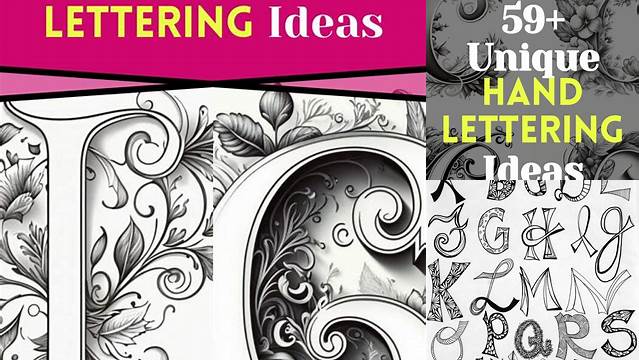
Mastering Font Art: A Guide To Drawing Unique Lettering
Hey guys! Ever wanted to make your handwriting look super cool or create awesome designs with different fonts? Learning how to draw different fonts can be a game-changer for your art, journaling, or even just making notes more fun. It’s not as intimidating as it sounds, I promise! In this guide, we're going to dive deep into the world of font art, exploring everything from the basics to some pretty advanced techniques. So, grab your pencils, pens, or tablets, and let’s get started on this lettering journey!
1. Understanding the Basics of Typography
Before we jump into the actual drawing, let’s talk typography! Understanding the anatomy of letters—like the baseline, x-height, ascenders, and descenders—is crucial for creating consistent and visually appealing fonts. Think of it like this: each letter has a skeleton, and knowing the parts of that skeleton helps you build a strong and beautiful character. Familiarize yourself with terms like serifs (the little feet on some letters) and sans-serifs (no feet!), which are fundamental in font classification. When you know these elements, how to draw different fonts becomes less about copying and more about creating. We’ll break down each term and how they impact the overall look of your fonts. Trust me, once you get this, you'll start seeing fonts everywhere in a whole new light, from the signs you pass on the street to the books you read. And that’s the first step in becoming a true font artist!
2. Drawing Serif Fonts: Classic and Elegant
Serif fonts are those classic, elegant letter styles with the little strokes or "feet" at the ends of the letterforms. Think Times New Roman or Garamond – they're everywhere! When learning how to draw different fonts, mastering serif fonts is a great place to start because they teach you about structure and balance. The key here is consistency in the serifs themselves. Are they bracketed (curved) or unbracketed (straight)? Are they thick or thin? Keeping these details uniform will make your font look polished and professional. Practice drawing the basic alphabet in a serif style, paying close attention to the thickness of the strokes and the shape of the serifs. Start with the uppercase letters, as they're often easier to control, then move onto the lowercase. You’ll see that the serifs add a touch of sophistication, making your lettering look timeless and refined.
3. Creating Sans-Serif Fonts: Modern and Clean
Sans-serif fonts, meaning "without serifs," offer a modern and clean aesthetic. Think Arial or Helvetica – these are your go-to fonts for a minimalist, contemporary vibe. When you’re figuring out how to draw different fonts, sans-serif styles are fantastic for practicing uniformity and simplicity. The challenge lies in maintaining consistent stroke widths throughout each letter. Because there are no serifs to add flourish, the shape and balance of the letters themselves are crucial. Start by sketching the basic forms, ensuring that the vertical and horizontal strokes are even. Pay attention to the negative space within and around the letters; this is just as important as the letters themselves in creating readability and visual appeal. Sans-serif fonts are incredibly versatile, making them perfect for everything from logos to body text in your designs.
4. Exploring Script Fonts: Flowing and Decorative
Script fonts are all about that flowing, cursive-like appearance. They mimic handwriting and add a touch of elegance and personality to your work. But when you’re learning how to draw different fonts, script styles can be a bit tricky. The key is understanding how the letters connect and maintain a smooth, consistent flow. Start by practicing the basic strokes – the loops, curves, and swashes that make script fonts so beautiful. Pay attention to the slant of the letters and the connections between them. It's helpful to study existing script fonts to get a feel for the rhythm and flow. Then, start experimenting with your own variations. Should the loops be large and dramatic, or small and subtle? Should the connections be delicate or bold? Each choice adds a different character to your script font. Script fonts are amazing for invitations, headings, and anything that needs a touch of flair.
5. Mastering Block Letters: Bold and Impactful
Block letters are bold, solid, and impactful. They’re perfect for headlines, posters, and anything that needs to grab attention. When it comes to how to draw different fonts, block letters are a fantastic exercise in precision and uniformity. The key here is to ensure that each letter has a consistent width and height, and that the spaces between the letters are even. Start by sketching the basic shapes, then fill them in with solid color or shading. Experiment with different thicknesses and styles – some block letters are very angular, while others have rounded edges. You can also play with drop shadows and 3D effects to make your block letters really pop. These fonts are super versatile, working great in both formal and informal designs, depending on the specific style you choose.
6. Calligraphy Techniques for Beginners
Calligraphy is the art of beautiful writing, and it’s a fantastic way to elevate your font-drawing skills. If you're wondering how to draw different fonts with a professional touch, learning calligraphy basics is a must. The fundamental technique in calligraphy is varying the thickness of your strokes by changing the pressure on your pen or brush. This creates the characteristic thick-and-thin lines that give calligraphy its elegant look. Start with simple drills, practicing your upstrokes (thin lines) and downstrokes (thick lines). Then, move onto forming basic letter shapes. There are many different calligraphy styles, from Copperplate to Italic to Gothic, each with its own unique look and feel. Choose a style that resonates with you and start practicing. Don’t be discouraged if it feels awkward at first – calligraphy takes practice and patience. But the results are so worth it!
7. Drawing Bubble Letters: Fun and Playful
Bubble letters are those fun, rounded, almost cartoonish letterforms. They're perfect for adding a playful touch to your designs, and they're a great way to explore how to draw different fonts in a more relaxed style. The key to bubble letters is their rounded shapes and inflated appearance. Start by sketching the basic letter shapes with rounded corners, then add extra curves and volume to make them look bubbly. You can also experiment with overlapping the letters or adding shadows and highlights to create a 3D effect. Bubble letters are fantastic for kids’ projects, birthday cards, and anything that needs a dose of fun and whimsy. They’re also a great way to practice your freehand drawing skills, as they’re less about precision and more about capturing that playful vibe.
8. Creating Graffiti Fonts: Urban and Edgy
Graffiti fonts are bold, dynamic, and full of attitude. They’re inspired by street art and often feature sharp angles, overlapping elements, and a sense of movement. If you're looking into how to draw different fonts with an urban edge, graffiti styles are the way to go. The key to graffiti fonts is capturing that raw, energetic feel. Start by sketching the basic letter shapes, then experiment with adding extensions, drips, and other embellishments. Overlapping letters and varying the thickness of your strokes can create a sense of depth and dynamism. Graffiti fonts often incorporate a lot of negative space, so don’t be afraid to leave gaps and openings in your letters. This style is all about expressing yourself, so let your creativity flow and don’t be afraid to break the rules. Graffiti fonts are perfect for posters, flyers, and any design that needs a bold, urban vibe.
9. Designing Distorted Fonts: Abstract and Unique
Distorted fonts push the boundaries of traditional letterforms, creating abstract and unique designs. When you’re exploring how to draw different fonts, distortion techniques can lead to some really interesting results. The idea is to take the basic letter shapes and manipulate them in unexpected ways – stretching, squeezing, twisting, or breaking them apart. You can also experiment with adding textures, patterns, and other visual elements to further enhance the distortion effect. Distorted fonts are all about experimentation and pushing the limits of legibility. They're perfect for creating eye-catching headlines, posters, and designs that need a strong visual impact. Don't be afraid to get weird and unconventional – that's where the magic happens!
10. Mixing and Matching Font Styles: Creating Harmony
Knowing how to draw different fonts is great, but knowing how to combine them effectively is even better! Mixing font styles can create visual interest and hierarchy in your designs, but it’s important to do it thoughtfully. The key is to find fonts that complement each other without competing. A good rule of thumb is to pair a serif font with a sans-serif font, or a bold font with a lighter font. You can also use different font sizes and weights to create contrast and emphasize certain elements. When choosing fonts, consider the overall tone and message of your design. A formal design might call for classic serif and sans-serif pairings, while a more playful design could incorporate a script font or a display font. Experiment with different combinations until you find a mix that feels balanced and harmonious.
11. Adding Shadows and Highlights to Fonts
Shadows and highlights can add depth and dimension to your fonts, making them pop off the page (or screen!). This is a fantastic technique when you’re figuring out how to draw different fonts that really stand out. The basic idea is to simulate how light would fall on the letterforms, creating areas of shadow and highlight. Start by imagining a light source – where is the light coming from? The areas facing the light will be highlighted, while the areas away from the light will be shadowed. Use shading techniques, like hatching, cross-hatching, or stippling, to create the shadows. For highlights, you can either leave those areas white or use a lighter shade. Experiment with different shadow and highlight styles to see what works best for your font and design. A subtle shadow can add a touch of elegance, while a dramatic shadow can create a bold, 3D effect.
12. Incorporating Textures into Your Font Designs
Adding textures to your fonts can give them a unique and tactile feel. When exploring how to draw different fonts, textures can take your designs to the next level, making them more visually interesting and engaging. There are many ways to incorporate textures into your fonts. You can use digital brushes and effects in programs like Photoshop or Illustrator, or you can create textures by hand using techniques like stippling, hatching, or rubbing. You can also experiment with different materials, like watercolor, ink, or even collage. The key is to choose a texture that complements the style of your font and the overall design. A rough, gritty texture might work well for a distressed font, while a smooth, glossy texture might be perfect for a modern, elegant font. Don't be afraid to experiment and see what you can create!
13. Using Gradients to Enhance Font Appearance
Gradients are a fantastic way to add depth and visual interest to your fonts. If you're looking into how to draw different fonts that really stand out, gradients can be your secret weapon. A gradient is a smooth transition between two or more colors, and it can create a sense of movement, dimension, and sophistication in your designs. You can use gradients to fill the entire letterform, or you can use them to create highlights and shadows. Experiment with different color combinations and gradient styles to see what works best for your font. A subtle gradient can add a touch of elegance, while a bold gradient can create a dramatic effect. Gradients are particularly effective for display fonts and headlines, where you want to make a strong visual impact.
14. Creating 3D Fonts: Adding Depth and Dimension
3D fonts are a surefire way to make your lettering pop. When you're learning how to draw different fonts, mastering the 3D effect can significantly enhance your designs. The key to creating 3D fonts is to simulate depth and perspective. Start by sketching the basic letter shapes, then add a second set of lines to create the illusion of thickness. The angle and spacing of these lines will determine the direction and intensity of the 3D effect. You can then fill in the spaces between the lines to create the solid 3D form. Adding shadows and highlights will further enhance the illusion of depth. Experiment with different perspectives and lighting angles to see what looks best. 3D fonts are perfect for headlines, posters, and any design where you want to make a bold statement.
15. Designing Fonts with Geometric Shapes
Geometric fonts use basic shapes like circles, squares, and triangles to create letterforms. This approach can result in some really unique and modern designs. When you're exploring how to draw different fonts, geometric styles offer a clean and structured aesthetic. The key is to break down each letter into its basic geometric components, then arrange and combine those shapes to create recognizable letterforms. You can experiment with different proportions, angles, and spacing to create a variety of geometric font styles. This approach is great for creating logos, headlines, and designs that need a strong, geometric feel. Geometric fonts are often associated with modernism and minimalism, making them a great choice for contemporary designs.
16. Developing Handwritten Fonts: Personal and Authentic
Handwritten fonts capture the charm and personality of actual handwriting. If you’re wondering how to draw different fonts that feel personal and authentic, exploring handwritten styles is a must. The goal is to mimic the natural variations and imperfections of handwriting, creating a font that feels warm and approachable. Start by practicing writing the alphabet in your own handwriting, paying attention to the unique characteristics of your letterforms. Then, refine those shapes and create a consistent set of letters. You can use a variety of tools, like pens, pencils, or brushes, to achieve different handwritten styles. Handwritten fonts are perfect for invitations, greeting cards, and designs that need a personal touch. They can also be used to add a human element to digital designs.
17. Designing Fonts Inspired by Nature
Nature can be a fantastic source of inspiration for font design. When you’re thinking about how to draw different fonts, looking to the natural world can spark some creative ideas. Think about the shapes of leaves, the curves of branches, the patterns in flowers – all of these can be translated into unique letterforms. You can use natural textures and patterns to add visual interest to your fonts, or you can create letterforms that directly mimic natural shapes. For example, you might create a font with letterforms that resemble leaves or branches. Nature-inspired fonts can add an organic and whimsical feel to your designs, making them perfect for projects with a natural or eco-friendly theme.
18. Creating Fonts with a Vintage Aesthetic
Vintage fonts evoke a sense of nostalgia and timelessness. If you're exploring how to draw different fonts with a classic feel, vintage styles are a great option. These fonts often incorporate elements like serifs, swashes, and decorative details that were popular in past eras. To create a vintage font, start by researching fonts from the era you want to emulate. Look at old posters, advertisements, and book covers to get a sense of the styles and trends. Then, start sketching your letterforms, incorporating those vintage elements. You can also experiment with distressed textures and aged effects to further enhance the vintage aesthetic. Vintage fonts are perfect for logos, packaging, and designs that need a touch of retro charm.
19. Mastering the Art of Kerning and Spacing
Kerning and spacing are crucial for creating readable and visually appealing fonts. While learning how to draw different fonts, understanding these concepts is essential for professional-looking typography. Kerning refers to the adjustment of the space between individual letters, while spacing refers to the overall space between words and lines. The goal is to create a consistent and balanced rhythm across your text. Poor kerning and spacing can make your text look awkward and difficult to read, while good kerning and spacing can enhance readability and visual appeal. Pay attention to the spaces between letters and words, and make adjustments as needed to create a harmonious flow. Practice kerning and spacing with different font styles and sizes to develop your eye for good typography.
20. Using Font Design Software and Tools
Font design software and tools can greatly streamline the font-creation process. If you’re serious about how to draw different fonts, investing in the right tools can save you time and effort. There are many font design programs available, ranging from free to professional-level options. These programs typically offer features like vector drawing tools, letter spacing and kerning adjustments, and font export options. Some popular font design software includes FontLab Studio, Glyphs, and BirdFont. You can also use graphic design software like Adobe Illustrator or Inkscape to create fonts, although these programs may not offer as many specialized font-design features. Experiment with different software and tools to find what works best for your workflow and budget.
21. The Importance of Legibility in Font Design
Legibility is paramount in font design. While experimenting with how to draw different fonts, always prioritize readability. A beautifully designed font is useless if it can't be easily read. Consider the purpose of your font and the context in which it will be used. A display font used for headlines can be more decorative and expressive, while a body text font needs to be clear and simple. Pay attention to the letterforms, stroke widths, and spacing, and ensure that each letter is easily distinguishable from the others. Test your font at different sizes and in different contexts to ensure that it remains legible. Remember, the primary goal of typography is to communicate a message, so legibility should always be a top priority.
22. Creating Fonts for Different Media (Print vs. Digital)
When designing fonts, consider the media in which they will be used. The requirements for print fonts and digital fonts can differ significantly. If you’re thinking about how to draw different fonts for various applications, keep these distinctions in mind. Print fonts need to be crisp and clear at high resolutions, while digital fonts need to be optimized for screen display. Digital fonts may need to be hinted (adjusted to improve their appearance on screens) to prevent pixelation and blurring. Consider the intended use of your font – will it be used primarily for print, digital, or both? Choose your font design tools and techniques accordingly. You may also need to create different versions of your font for print and digital use.
23. Designing Fonts for Logos and Branding
Fonts play a crucial role in logos and branding. When you're learning how to draw different fonts, consider how your designs can contribute to a brand's identity. The font you choose for a logo or brand should reflect the brand's personality and values. A classic serif font might be a good choice for a traditional and established brand, while a modern sans-serif font might be more appropriate for a contemporary brand. Consider the legibility, versatility, and visual impact of your font. A logo font needs to be distinctive and memorable, but it also needs to be legible at various sizes and in different contexts. Pay attention to the overall aesthetic and ensure that your font complements the other elements of the brand's identity.
24. Building a Font Family: Variations and Weights
A font family consists of different variations and weights of a single font style. When you're mastering how to draw different fonts, creating a font family can greatly increase its versatility and usefulness. A font family typically includes variations like bold, italic, light, and condensed versions of the base font. These variations allow you to create visual hierarchy and emphasis in your designs. When designing a font family, consider the overall consistency and harmony between the different weights and styles. Each variation should share the same basic letterforms and design principles, while also having its own distinct character. A well-designed font family can be a valuable asset for any designer, providing a wide range of options for different design needs.
25. Understanding Font Licensing and Usage Rights
Font licensing and usage rights are important considerations for font designers and users. When you're exploring how to draw different fonts, it's crucial to understand the legal aspects of font usage. Fonts are typically protected by copyright, and their usage is governed by licensing agreements. Different font licenses allow for different uses, such as personal use, commercial use, or embedding in software or websites. Before using a font in a project, make sure you understand the terms of its license and that you are complying with the usage rights. If you're creating your own fonts, you'll also need to consider how you want to license them. There are various licensing options available, from free and open-source licenses to commercial licenses with varying restrictions.
26. Creating Custom Fonts for Specific Projects
Custom fonts can add a unique and personal touch to specific projects. When you’re exploring how to draw different fonts, consider the possibilities of creating custom fonts tailored to particular needs. If you have a project that requires a font with a specific aesthetic or character, designing a custom font can be the perfect solution. Think about the project's purpose, audience, and overall design aesthetic. What kind of font would best complement the project's message and visuals? You can create a custom font from scratch or adapt an existing font to meet your needs. Custom fonts can be a valuable asset for branding, marketing, and other design projects, helping you to create a distinctive and memorable visual identity.
27. The Future of Font Design: Trends and Technologies
The field of font design is constantly evolving, driven by new trends and technologies. If you're interested in how to draw different fonts and stay ahead of the curve, it's important to keep up with the latest developments. Variable fonts are a recent innovation that allows for greater flexibility and customization in font design. Variable fonts contain a range of variations within a single font file, allowing designers to adjust parameters like weight, width, and style. Other trends include the use of artificial intelligence and machine learning in font design, as well as the exploration of new font formats and technologies. Staying informed about these trends and technologies can help you to create cutting-edge and innovative fonts.
28. Sharing and Selling Your Font Designs
If you've created some great fonts, you might want to share them with the world or even sell them. When you're confident in how to draw different fonts, sharing your creations can be a rewarding experience. There are various ways to share and sell your font designs. You can offer them for free download on your website or through font-sharing platforms. You can also sell them through font marketplaces or online stores. Before selling your fonts, you'll need to create a licensing agreement that specifies the usage rights and restrictions. You'll also need to market your fonts to potential customers. Consider creating a portfolio showcasing your font designs and promoting them on social media and design communities. Sharing and selling your fonts can be a great way to get feedback, build a reputation, and even generate income from your font design skills.
29. Building a Portfolio of Your Font Creations
A strong portfolio is essential for showcasing your font design skills. As you learn how to draw different fonts, building a portfolio of your best work is crucial for attracting clients and opportunities. Your portfolio should demonstrate your range of skills and styles, showcasing your best font designs. Include a variety of font styles, such as serif, sans-serif, script, and display fonts. For each font, provide clear samples of the letterforms, as well as examples of how the font can be used in different contexts. You can create a physical portfolio or an online portfolio, or both. An online portfolio allows you to reach a wider audience and can be easily updated. Your portfolio should be well-organized, visually appealing, and easy to navigate. It should also highlight your unique design style and personality. A strong portfolio is your best tool for showcasing your font design skills and attracting potential clients and employers.
30. Continuous Learning and Practice in Font Design
Continuous learning and practice are key to mastering font design. When it comes to how to draw different fonts, there’s always more to learn. The world of typography is vast and ever-evolving, so it's important to stay curious and keep honing your skills. Experiment with different font styles, techniques, and tools. Study the work of other font designers and typographers, and analyze what makes their fonts successful. Take online courses, read books and articles, and participate in design communities. Most importantly, practice regularly. The more you design fonts, the better you'll become. Set aside time each week to work on your font design skills, and challenge yourself to create new and innovative fonts. Continuous learning and practice are the keys to becoming a truly skilled font designer.
So there you have it! Learning how to draw different fonts is an awesome journey. It takes practice, but the creative possibilities are endless. Keep experimenting, keep learning, and most importantly, have fun with it! You’ll be amazed at what you can create. Happy lettering, guys!